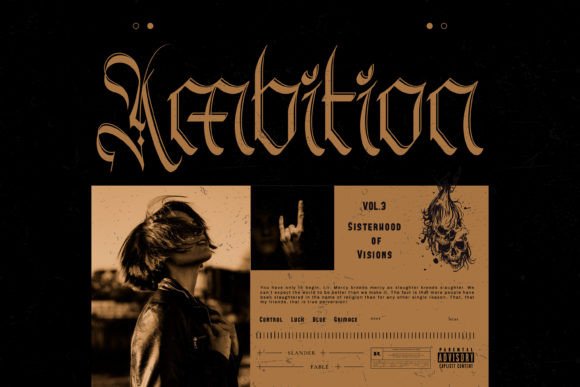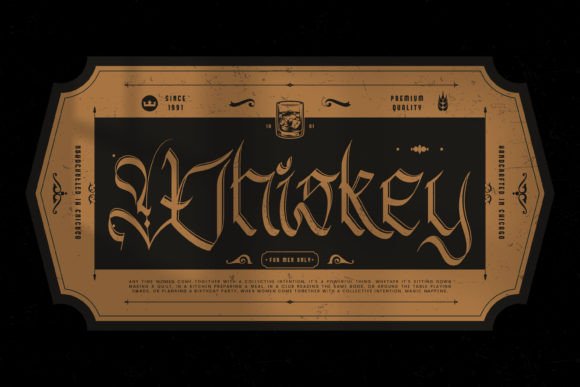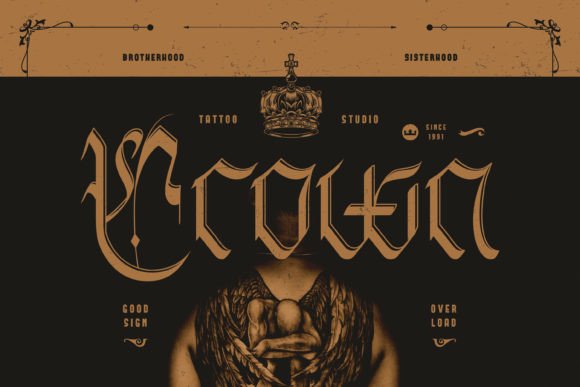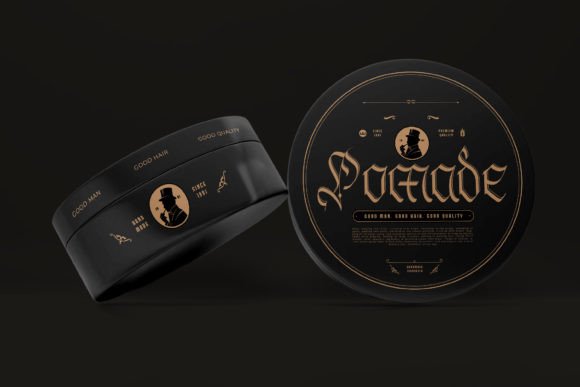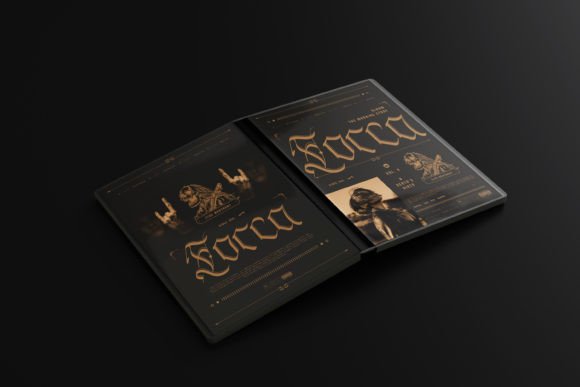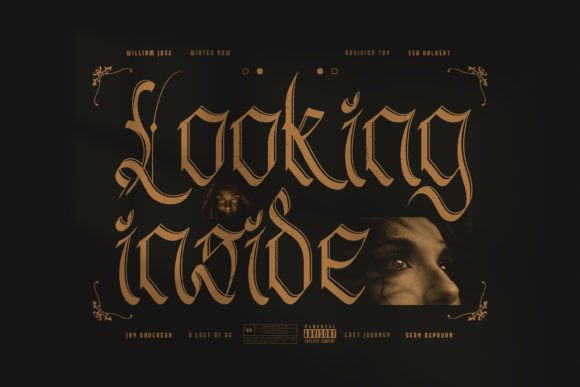
Djokovic Font: Elevate Your Designs with a Touch of Medieval Elegance
In the realm of typography, few fonts manage to evoke the essence of medieval grandeur as effectively as the Djokovic Font. This calligraphic typeface, characterized by its sharp, angular strokes and vintage appearance, has become a go-to choice for designers and crafters seeking to infuse their projects with a sense of tradition and timelessness. In this article, we’ll delve into the world of Djokovic Font, exploring its unique features, uses, and benefits, as well as provide tips on how to make the most of this versatile typeface.
The Distinctive Characteristics of Djokovic Font
Djokovic Font stands out from the crowd with its distinctive calligraphic flair, reminiscent of medieval manuscripts and illuminated texts. Its sharp, angular strokes lend a sense of dynamism and energy to any design, while its classic, traditional look ensures that it remains timeless and versatile. The font’s medieval appearance is perfect for creating a vintage or traditional look for your design ideas, making it an excellent choice for a wide range of projects, from wedding invitations and certificates to posters and packaging.
What Makes Djokovic Font So Popular Among Designers?
So, what makes Djokovic Font such a favorite among designers and crafters? For starters, its unique blend of elegance and playfulness makes it an excellent choice for a wide range of design projects. Whether you’re looking to create a sophisticated logo or a eye-catching poster, Djokovic Font is sure to make a lasting impression. Additionally, its versatility and legibility ensure that it can be used in a variety of contexts, from digital platforms to print materials.
Tips for Using Djokovic Font in Your Designs
To make the most of Djokovic Font, here are a few tips to keep in mind:
- Pair it with contrasting fonts: To create visual interest and add depth to your designs, try pairing Djokovic Font with contrasting fonts, such as sans-serif or script fonts.
- Experiment with colors: Djokovic Font looks stunning in a range of colors, from rich golds and burgundies to deep blues and greens. Don’t be afraid to experiment and find the perfect hue for your design.
- Use it for headlines and titles: Djokovic Font’s bold, attention-grabbing style makes it perfect for headlines and titles. Use it to draw attention to key messages or to add a touch of elegance to your designs.
The Benefits of Using Djokovic Font in Your Designs
So, what are the benefits of using Djokovic Font in your designs? Here are just a few:
- Unique and distinctive: Djokovic Font’s medieval appearance and sharp, angular strokes make it a standout choice for designers looking to create something truly unique.
- Versatile: Whether you’re working on a digital project or a print design, Djokovic Font is sure to shine.
- Easy to read: Despite its ornate appearance, Djokovic Font is surprisingly legible, making it perfect for use in a variety of contexts.
Where to Use Djokovic Font
Djokovic Font’s versatility makes it suitable for a wide range of design projects, including:
- Wedding invitations and stationery: Add a touch of elegance and sophistication to your wedding stationery with Djokovic Font.
- Posters and flyers: Use Djokovic Font to create eye-catching posters and flyers that are sure to grab attention.
- Packaging and branding: Djokovic Font’s unique appearance makes it perfect for use in packaging and branding, helping to create a lasting impression on customers.
In conclusion, Djokovic Font is a versatile and elegant typeface that is sure to elevate your designs to the next level. With its sharp, angular strokes and medieval appearance, it’s the perfect choice for designers and crafters looking to create a vintage or traditional look for their design ideas. Whether you’re working on a wedding invitation, poster, or packaging design, Djokovic Font is sure to make a lasting impression.